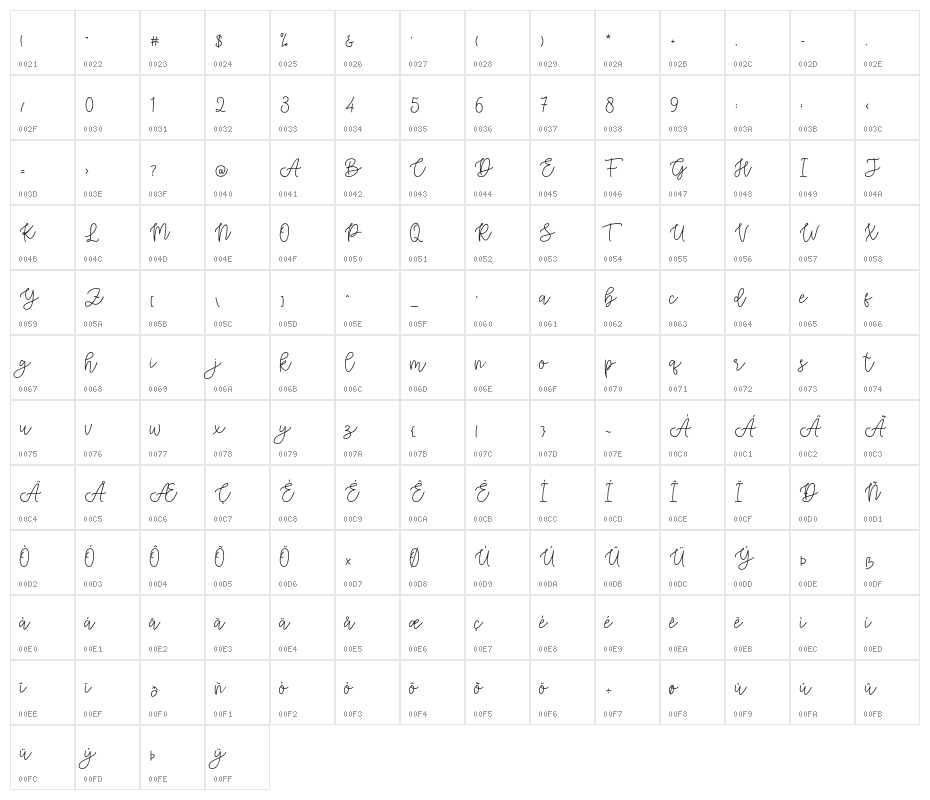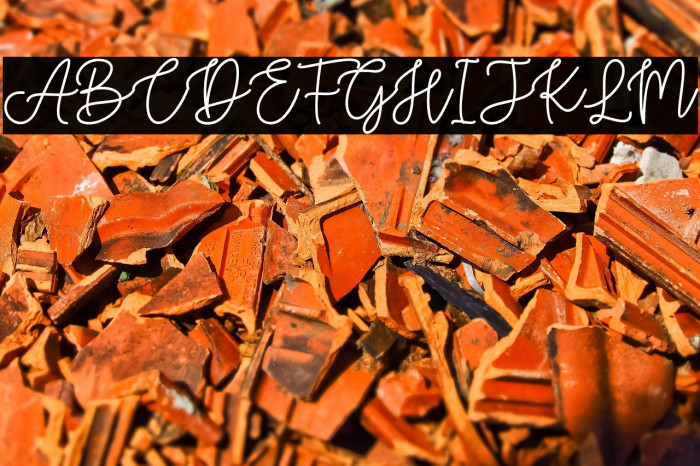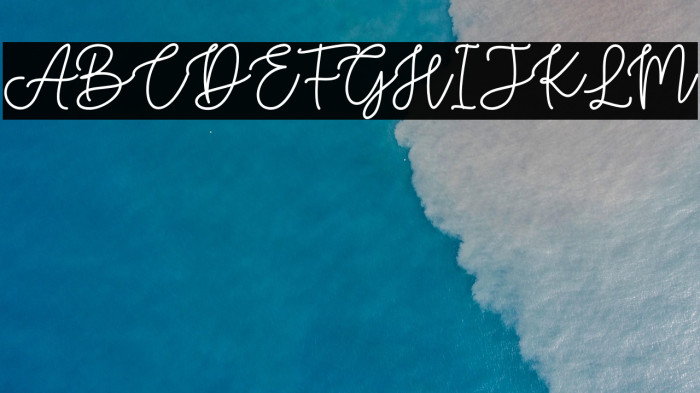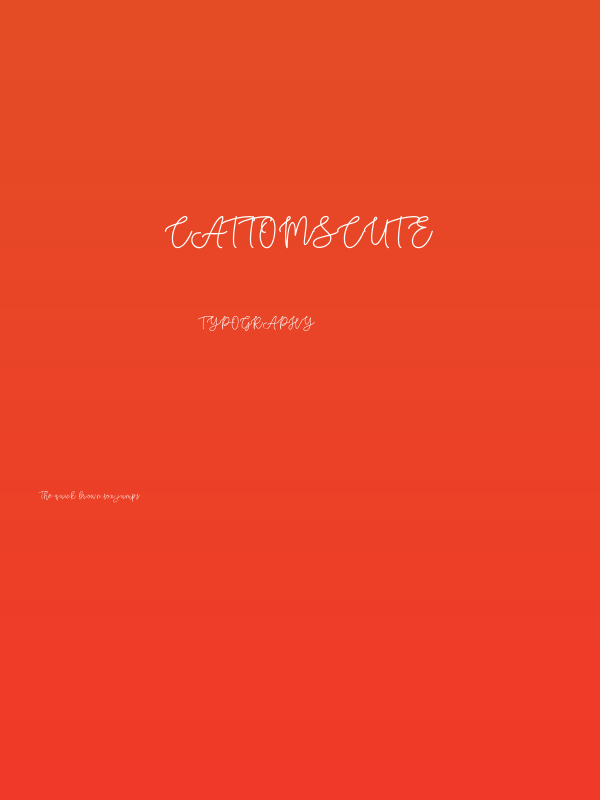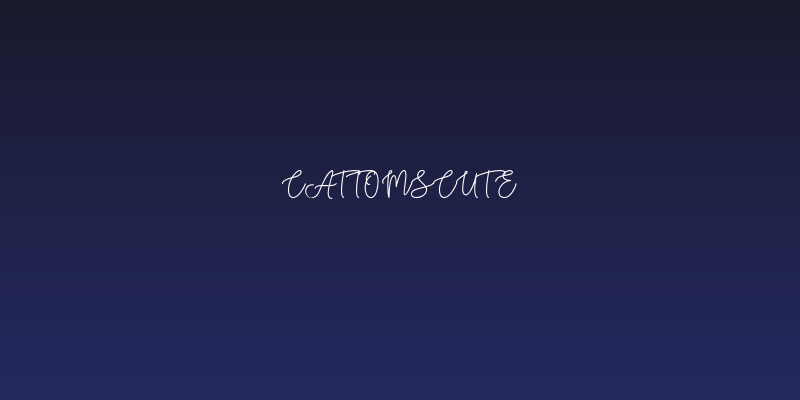
Cattomscute Font
Cattomscute Description
This font features a charming and fluid script style, characterized by its elegant, flowing lines and smooth curves. The uppercase letters are slightly more elaborate, with graceful loops and swirls that add a touch of sophistication. The lowercase letters maintain a consistent flow, making them highly readable while retaining a sense of whimsy. The numerals are clear and well-proportioned, complementing the overall aesthetic. Special characters are thoughtfully designed to match the script's playful yet refined nature. This font exudes a sense of warmth and friendliness, making it ideal for projects that require a personal touch.